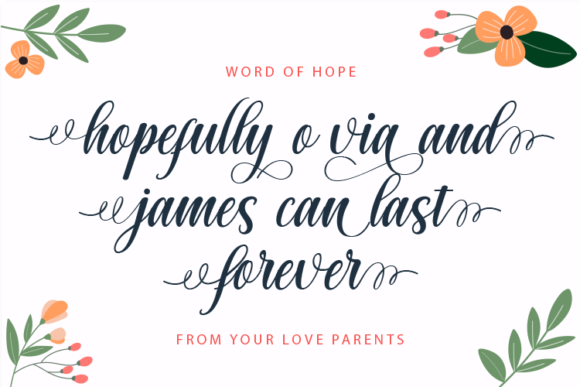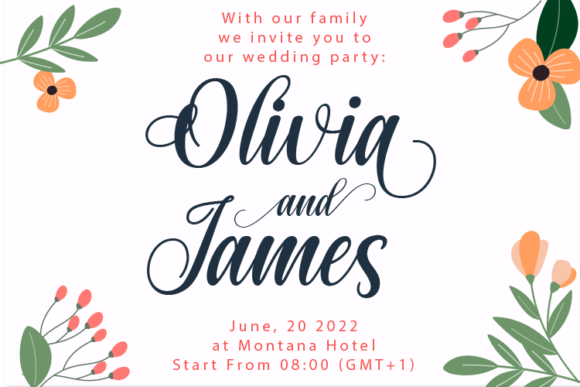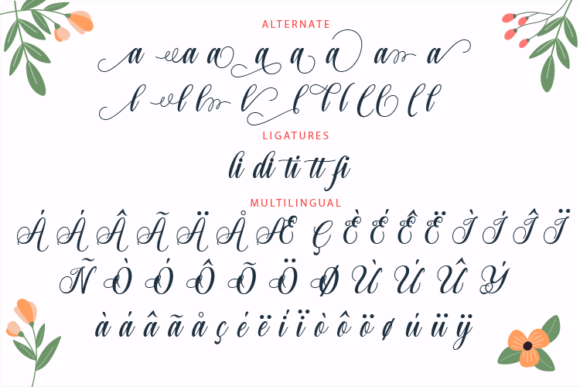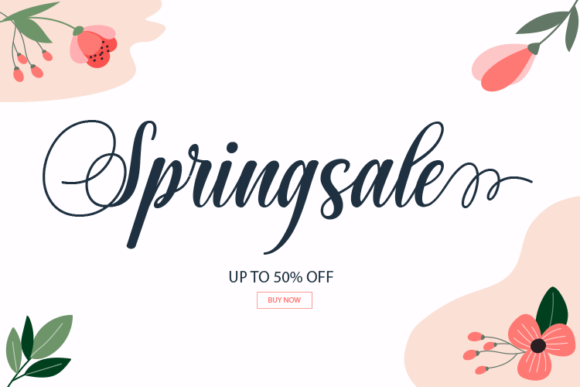
Discover the Joy of Hand-Drawn Typography with the Betiya Font
Have you ever stared at a blank canvas, waiting for inspiration to strike? For designers, those moments of creative block can be frustrating – but they can also be a chance to explore new fonts and unleash your imagination. That’s exactly what happened to me when I stumbled upon the charming Betiya Font.
This lovely script font is designed to add a touch of whimsy to your designs, with its playful characters dancing along the baseline. The Betiya Font is perfect for creating eye-catching titles, headings, and even entire paragraphs that invite readers to linger. With its PUA encoding, accessing the amazing glyphs and ligatures is a breeze – making it a valuable addition to any designer’s toolkit.
Whether you’re working on a children’s book, a wedding invitation, or a marketing campaign, the Betiya Font is sure to bring a smile to your face and delight your audience.
Betiya Font Key Features
- Font Family: Betiya is a multi-script font family designed for the Indian subcontinent, supporting languages such as Hindi, Marathi, Gujarati, and more.
- Character Set: Includes a wide range of characters, including Devanagari, Gujarati, and other Indian scripts, making it an ideal choice for publications, websites, and applications targeting the Indian market.
- Unique Characteristics: Features a unique blend of traditional and modern design elements, making it a distinctive and recognizable font for Indian language content.
- Language Support: Designed to support a wide range of Indian languages, including Hindi, Marathi, Gujarati, and many more, making it an essential font for multilingual content creation.
Betiya Font Review
Initially, I was drawn to Betiya’s unique and exotic flair. The font features intricate details and ornaments that set it apart from more generic script fonts. ✨ The attention to detail is impressive, with subtle flourishes and decorative elements that add a touch of elegance to any design. ✨
One of the standout features of Betiya is its versatility. It works well for a wide range of applications, from invitations and greeting cards to digital products and packaging. ✨ The font’s fluid, connected strokes also make it an excellent choice for body text, adding a touch of sophistication to even the most mundane content.
- ⚠️ The font’s complexity can sometimes make it difficult to read, particularly at smaller font sizes. This may limit its use in certain contexts, such as digital displays or print materials with tight spacing.
- ⚠️ Some users may find the font’s ornaments and flourishes distracting or overwhelming, which can detract from the overall design.
Overall, I would give Betiya a solid 4 out of 5 stars. While it may not be the best choice for every project, it is a unique and beautiful font that can add a touch of sophistication and elegance to any design. With careful use and consideration, Betiya can be a valuable addition to any designer’s toolkit.
Tips for Getting the Most Out of Betiya Font
Here are some tips for getting the most out of Betiya font:
- Use Betiya font for titles and headings to create a unique and eye-catching design.
- Pair Betiya font with other fonts to create a visually appealing contrast.
- Experiment with different font sizes and styles to create a dynamic design.
Betiya font is commonly used for:
- Graphic design projects.
- Editorial design and publishing.
Alternatives to Betiya Font
Bad Script
Bad Script is a calligraphic script font that features elegant and intricate strokes. It is suitable for use in creative and artistic projects, such as invitations, posters, and logos. Bad Script is often used to add a touch of sophistication and elegance to designs. Compared to Betiya Font, Bad Script has a more refined and polished look, making it a better choice for high-end designs.
Q: What is the recommended font size and line height for using the Betiya Font?
For optimal readability, we recommend using the Betiya Font at a minimum size of 12 points and a line height of 1.5 times the font size. This will ensure that the text is clear and easy to read, while also maintaining the font’s unique characteristics and aesthetic.